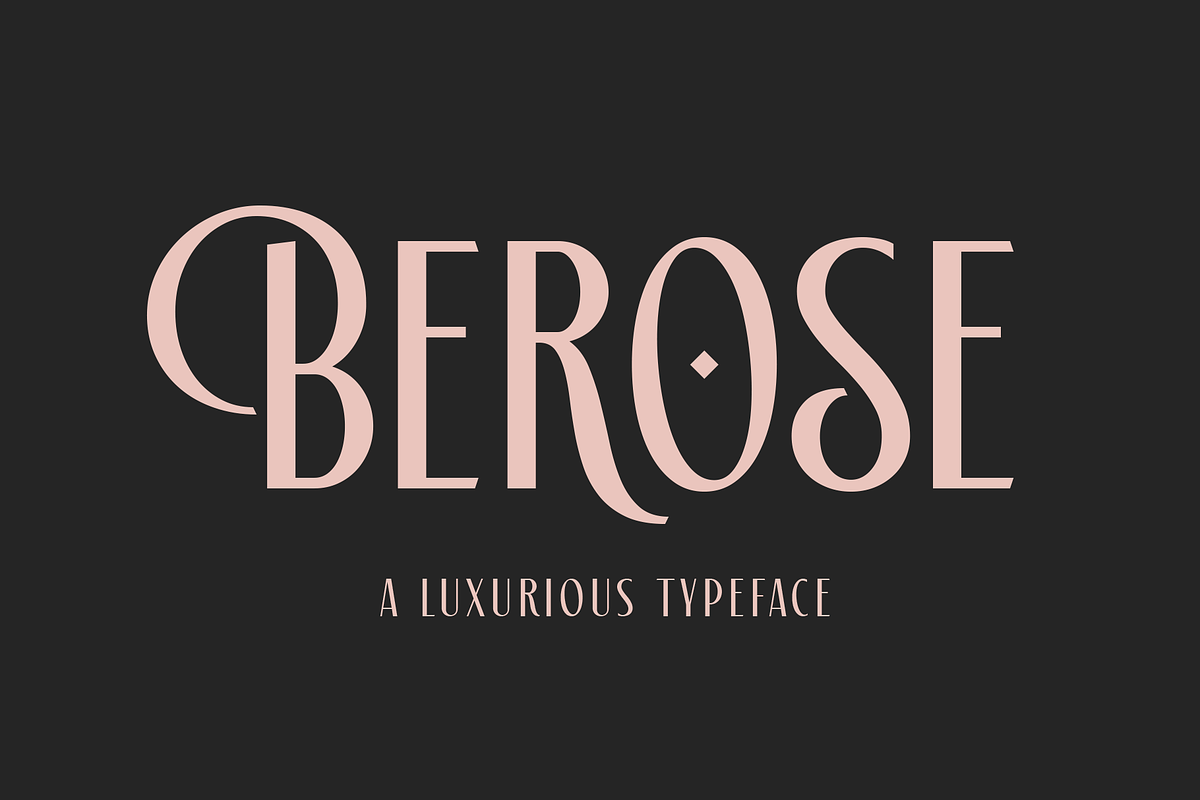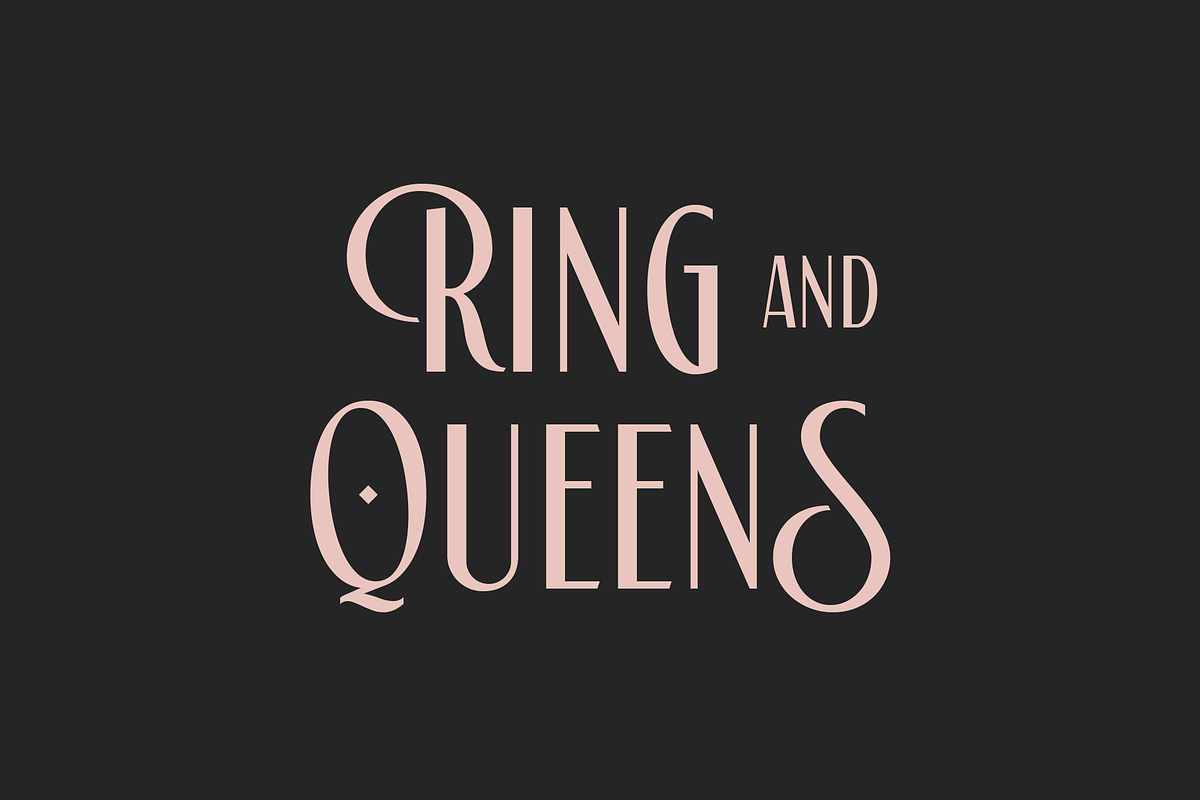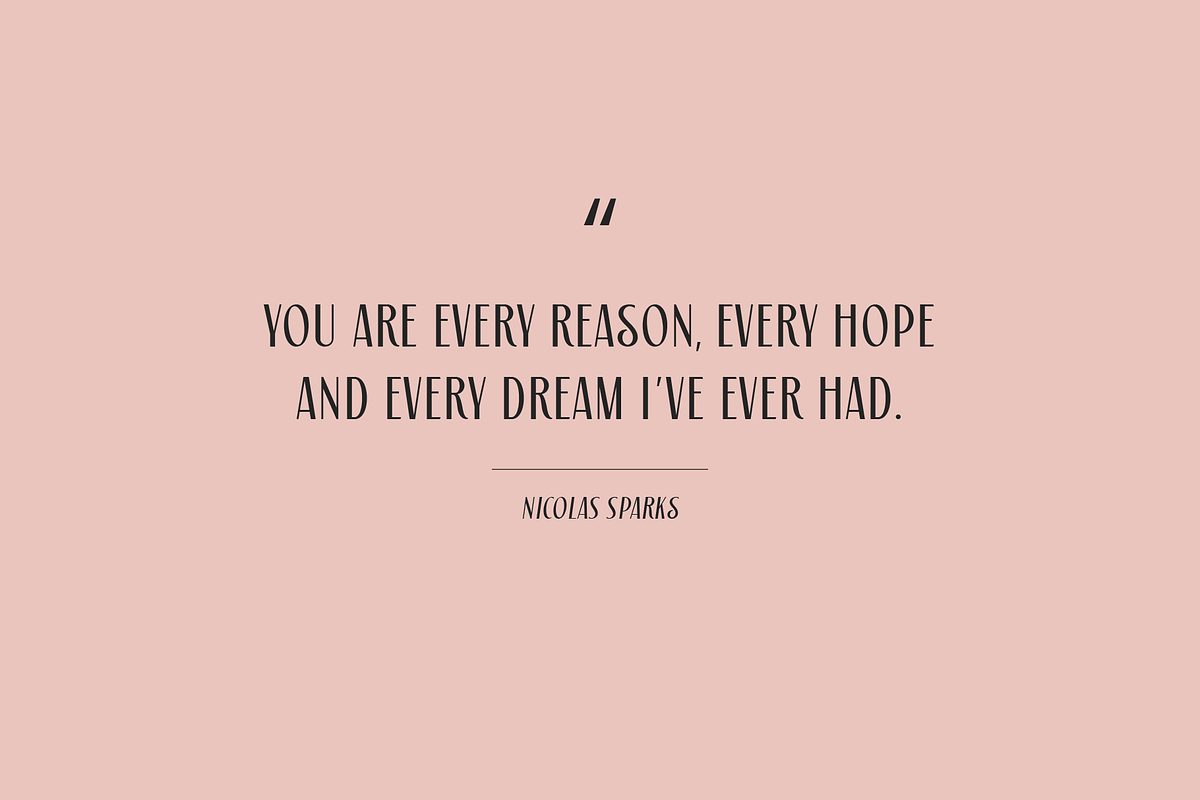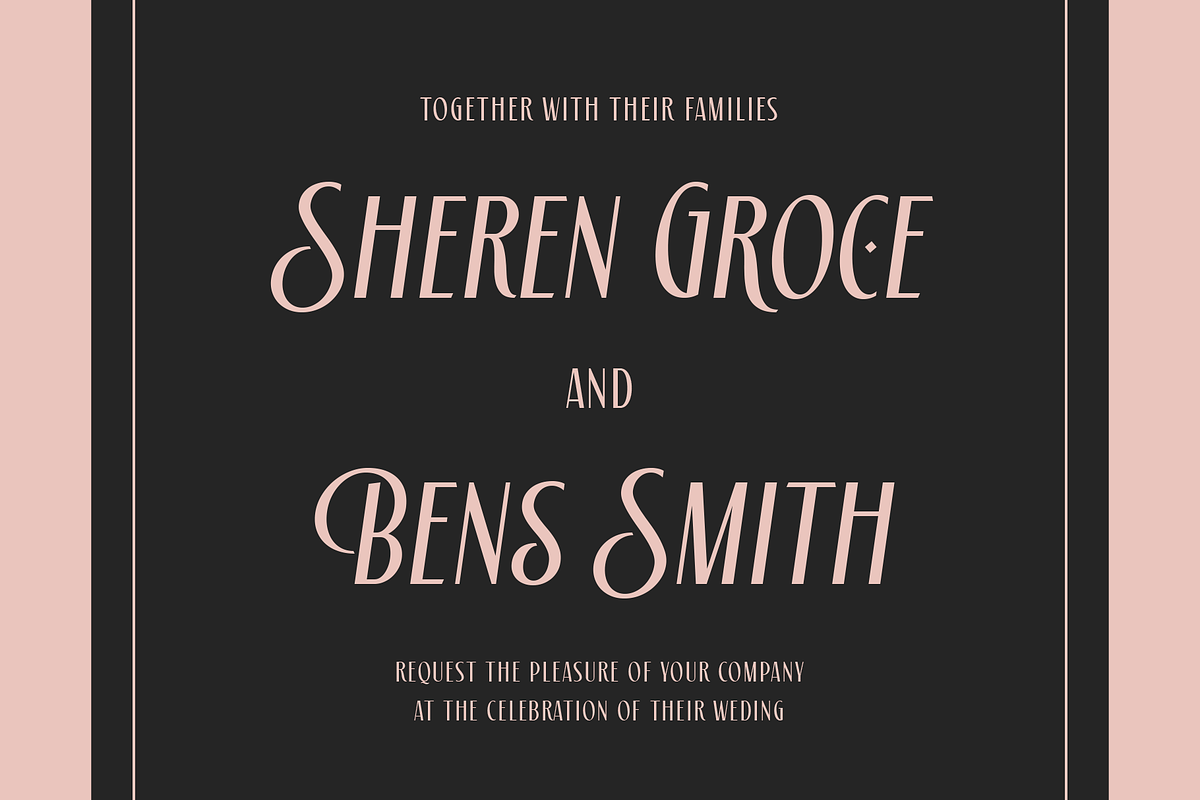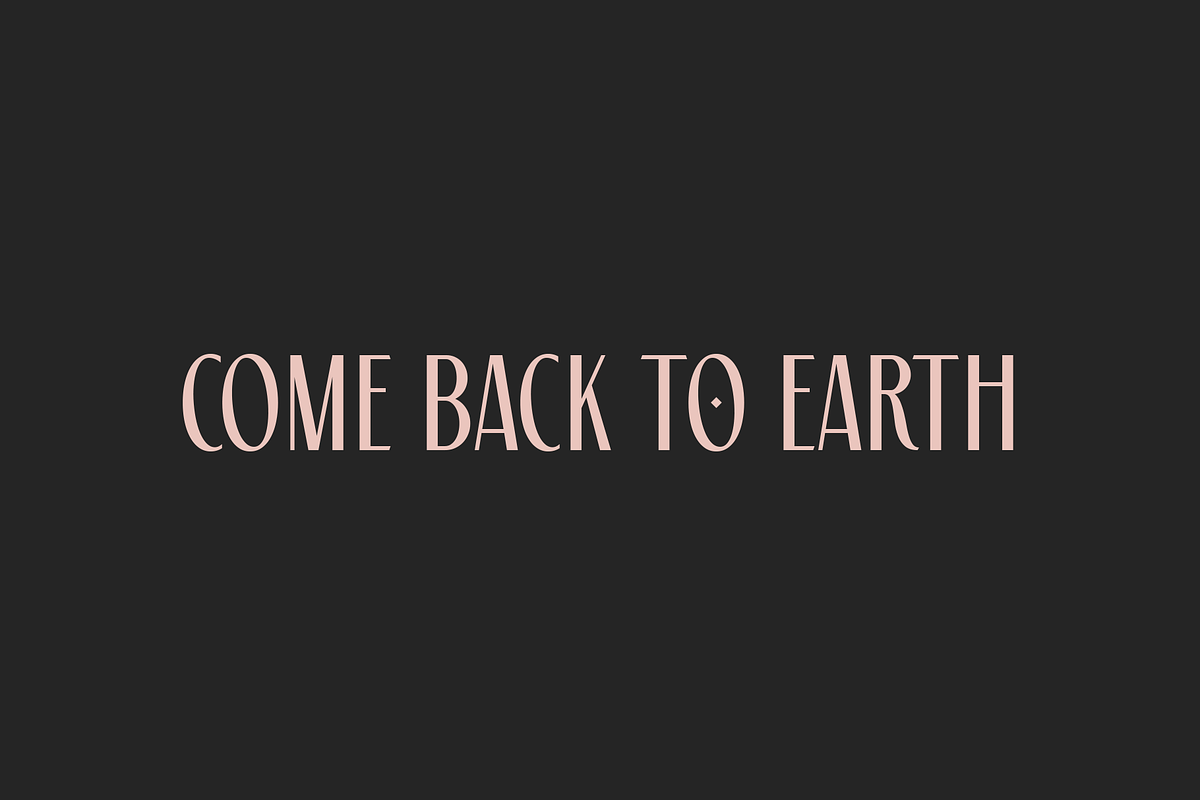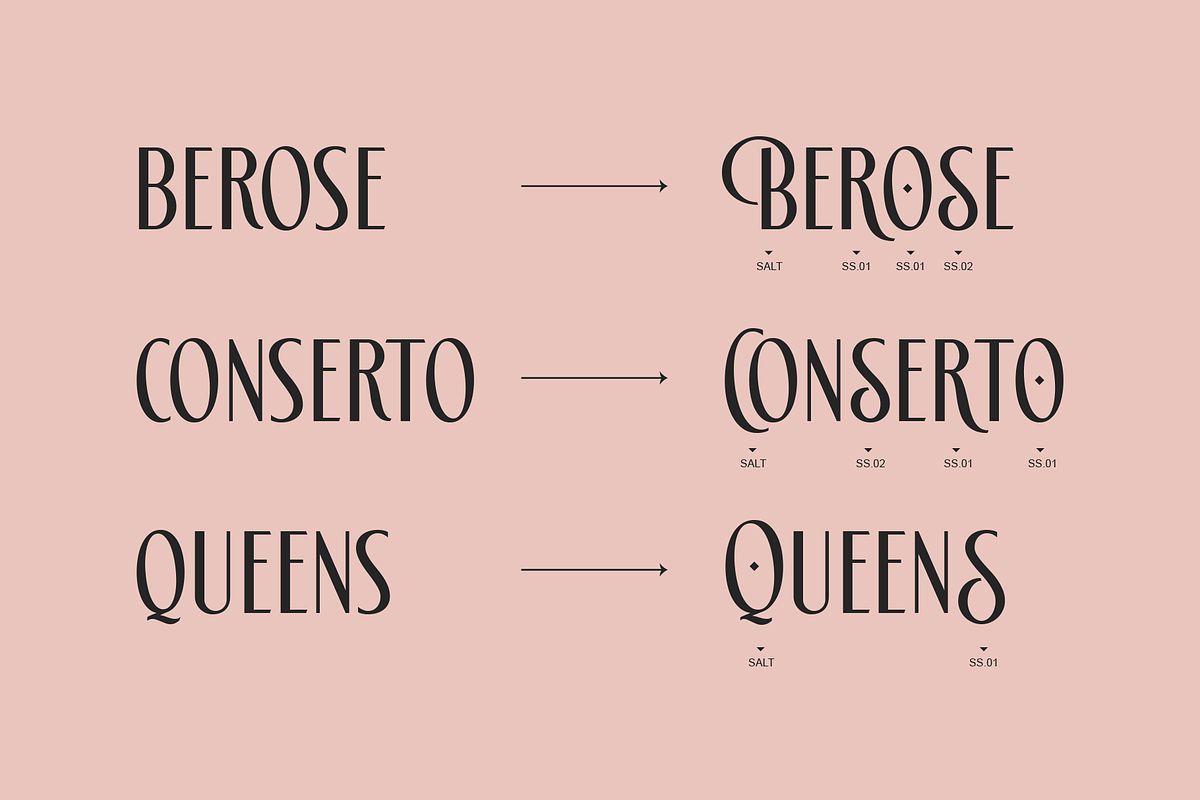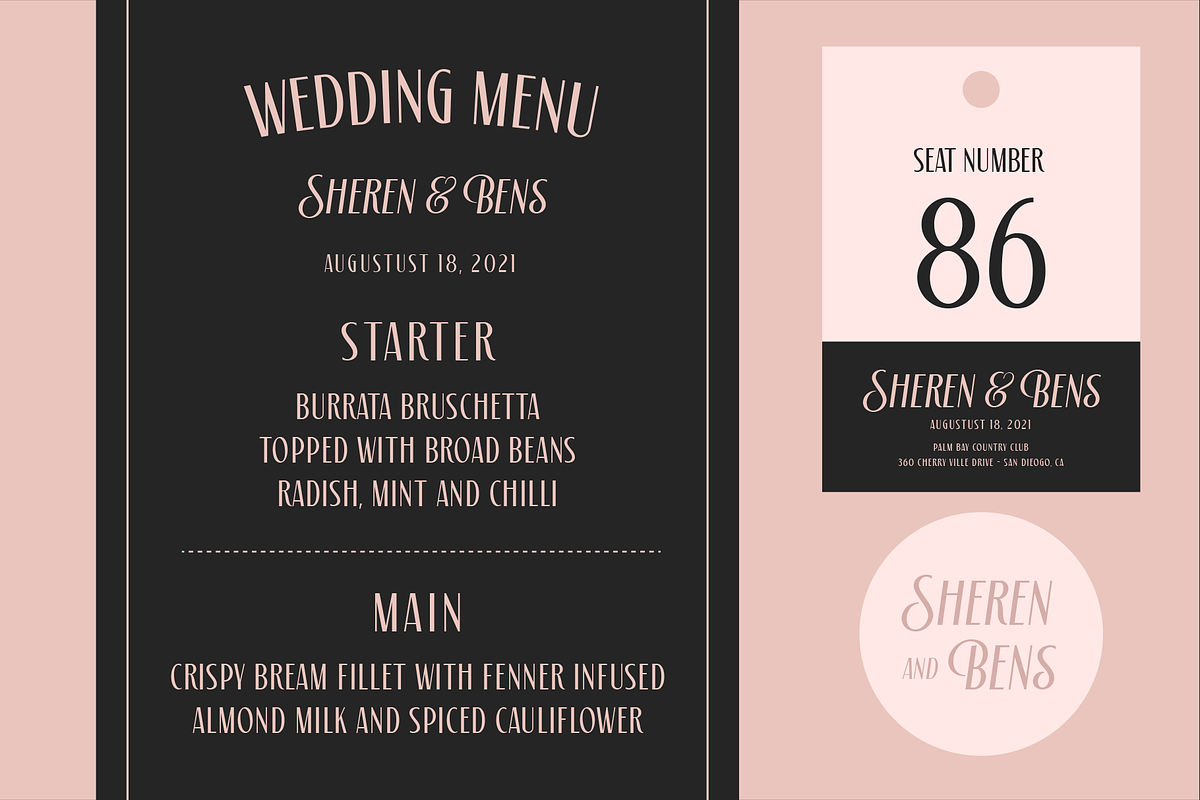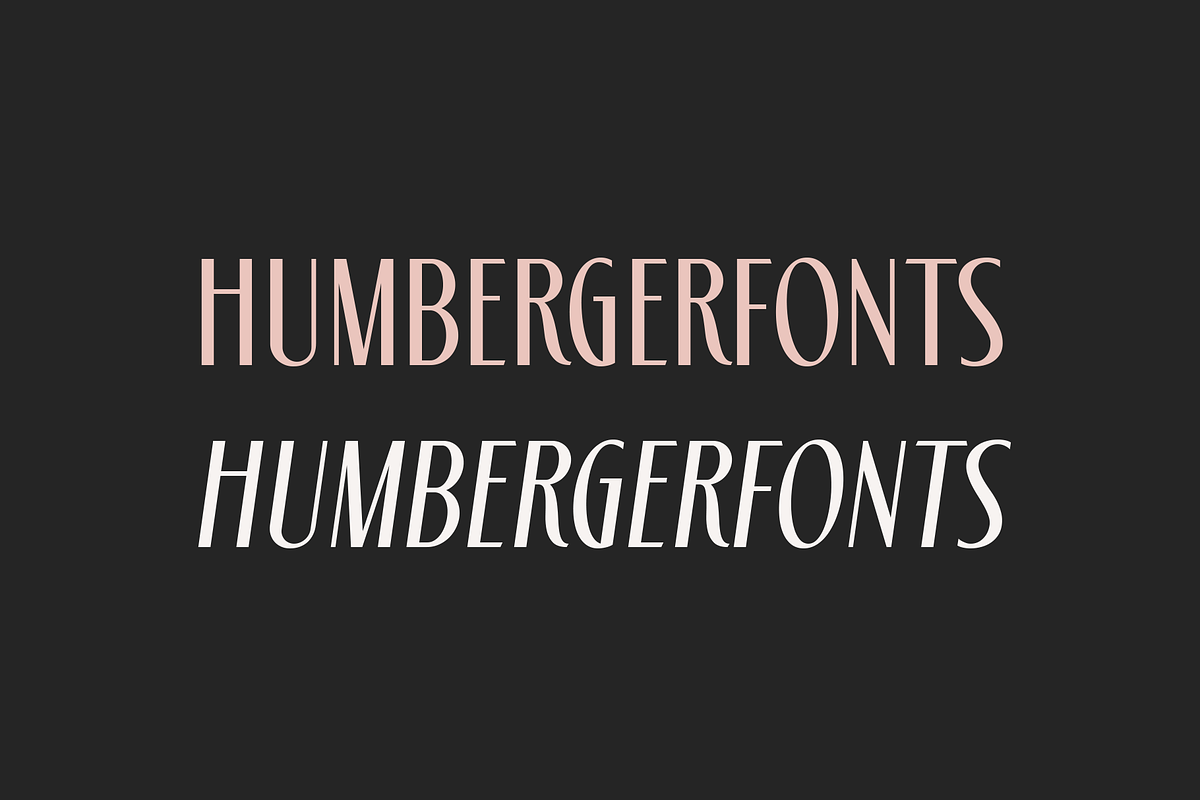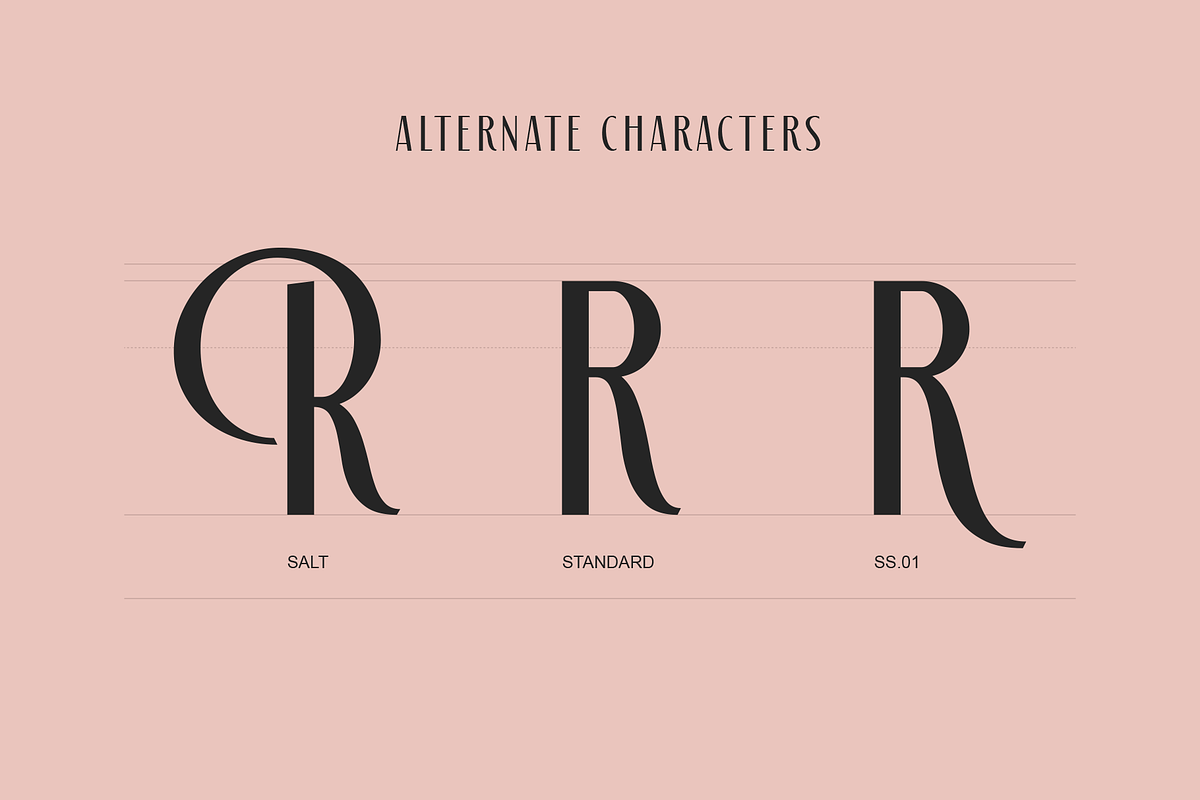
Berose
Berose is a luxurious typeface with high contrast. Comes in two styles regular and oblique with some alternative characters. With its elegant and dynamic character, Berose is perfect for romantic and luxury nuances such as wedding invitations, Covers, Movie title, Post Quotes, Logotype, Signage or something else.